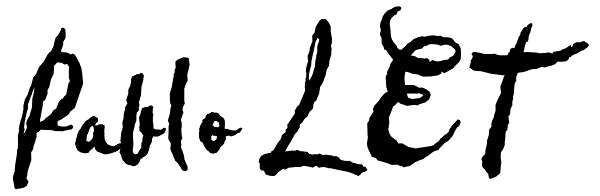
Pablo
British designer Trevor Pettit based this dramatic typeface on the signature of the great 20th century master, Pablo Picasso. The result is stunning - a chunky lowercase captures the very essence of Picasso’s influence and the capitals, although...